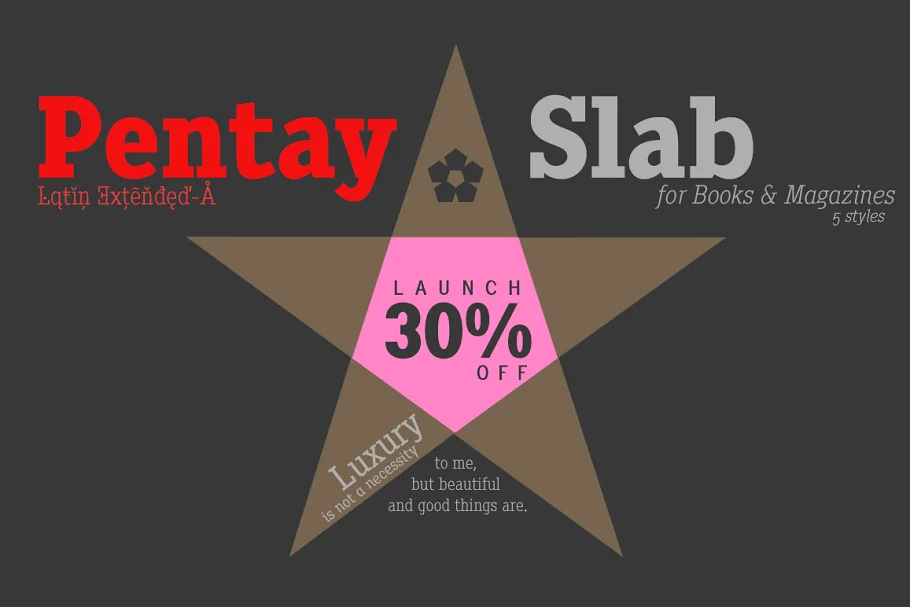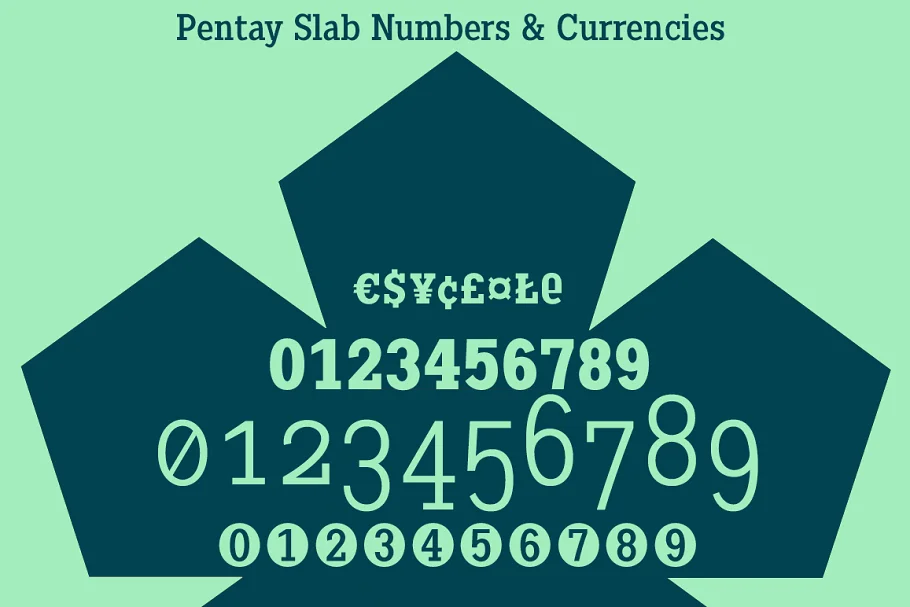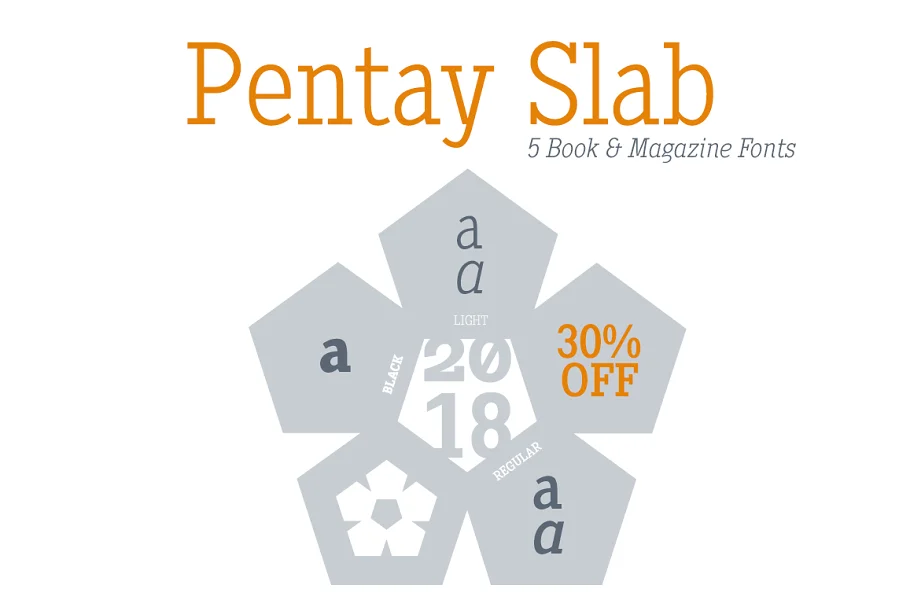
About the Pentay Slab Font
Pentay Slab Font is a Slab Serif typefaces family with 5 styles designed especially for editorial design and publications in general.
The proportions of the font as well as the metrics and the kerning have been carefully calculated to obtain maximum readability. The fonts also have a complete set of lowercase alternatives and advanced OpenType features.
- Light, Light Italic, Regular, Regular Italic & Black (5 fonts)
- OpenType Features: Inferiors, Capital Spacing, Superscript, Fractions, All Alternates, Additional languages, Superiors, Subscript, Denominators, Kerning, Localized Forms, Alternate Annotation Forms, Historical Ligatures, Historical Forms, Discretionary Ligatures, Standard Ligatures, Slashed Zero, Scientific Inferiors, Extended Fractions, Ordinals, Oldstyle Figures, Superior letters, Numerators.